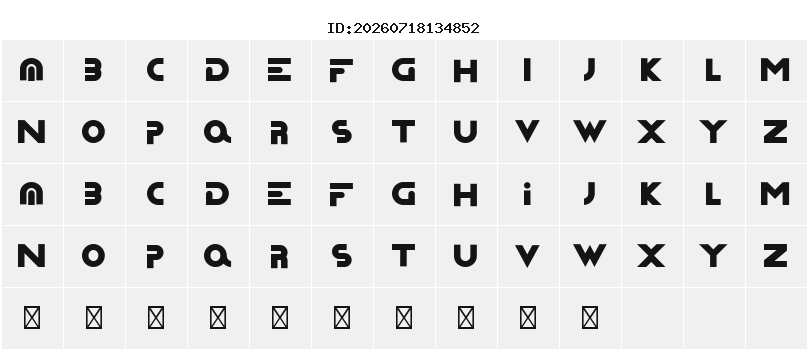
• Font Name: Capsture
• Designer: Emin Gökçeoğlu
About Capsture.ttf
Capsture.ttf is a modern, elegant sans-serif font designed for ultimate readability and visual harmony. Perfect for branding, headlines, web design, and print materials.